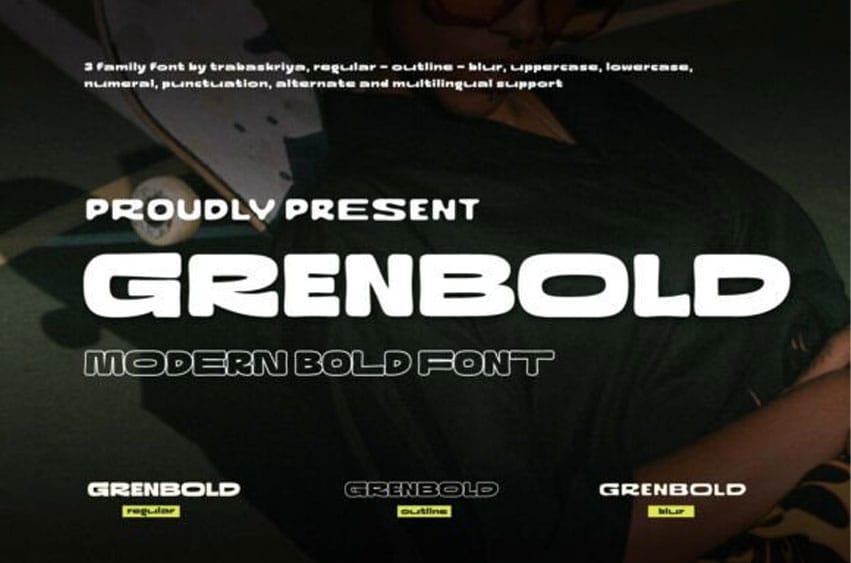
Grenbold Font is a modern, bold display font that radiates strength and contemporary style. With its thick strokes and smooth curves, this font brings a confident character to every design, making it the perfect choice for projects that demand boldness and clarity.
Crafted for versatility, Grenbold works beautifully in logos, posters, headlines, product packaging, and digital branding. The font family comes with Regular, Outline, and Blur styles, providing designers with the freedom to experiment with contrasts and layering effects for maximum impact.
Every letter in Grenbold carries a sense of power and modern aesthetics, making your text not only readable but also unforgettable. It’s the kind of font that doesn’t just sit on the page—it commands attention and leaves a lasting impression.